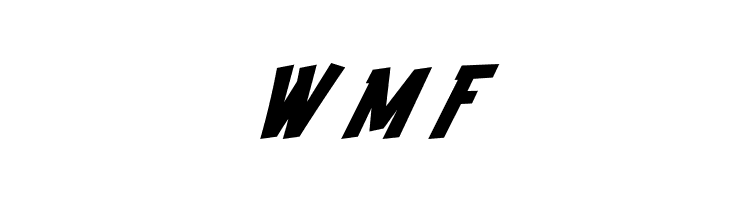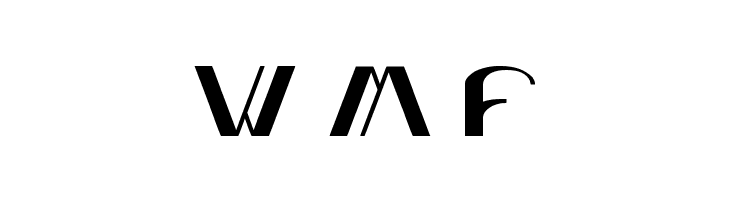
• Yaahowu Light Italic Italic
A modern, light, and italicized font with smooth, rounded edges.
• Yaahowu Ono Niha
A modern, rounded font with uniform stroke width and excellent readability.
• Yaahowu Ono Niha
A modern, rounded sans-serif font with smooth curves and consistent stroke width.
• Yaahowu Thick
A bold, rounded font with smooth curves and a friendly, modern appearance.
• Yaahowu Thick
A bold, rounded font with smooth curves and uniform strokes.
• Yaahowu Thick Italic Italic
A bold, italic font with smooth, rounded characters and a dynamic slant.
• Yaahowu Thick Italic Italic
• Yagitudeh
A bold, playful font with a unique striped pattern inside each character.
• Yanis
A lively, flowing script font with a playful, handwritten appearance.
• YardenTawns
A whimsical, hand-drawn font with elongated, irregular letterforms.
• Yes Darling
A playful, hand-drawn font with bold, irregular strokes and a whimsical style.
• Yetimology
An elegant, flowing script font with a handwritten style.
• Yokomizo
• You & Me & Everyone Else
A modern, geometric font with bold, artistic elements.
• You & Me & Everyone Else
A modern, geometric font with bold, abstract elements and dynamic strokes.
• You Are Precious
An ornate script font with intricate swirls and decorative flourishes.
• You Are Something
An ornate and whimsical font with elaborate curls and loops.
• You Make Me Happy
A bold, playful font with rounded edges and a slightly italicized style.
• Your Bloody Choice
A dramatic, horror-themed font with sharp edges and dripping elements.
• Youth Cow
A bold, rounded font with a playful and friendly style.
• Youth wright
A bold, dynamic font with a playful and energetic style.
• Youth Wright Italic